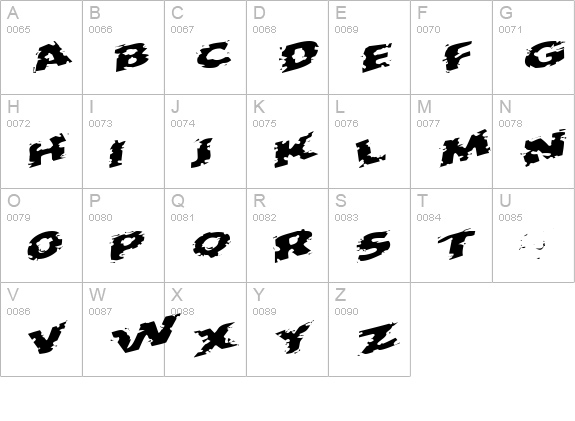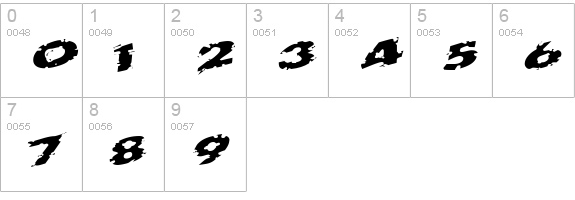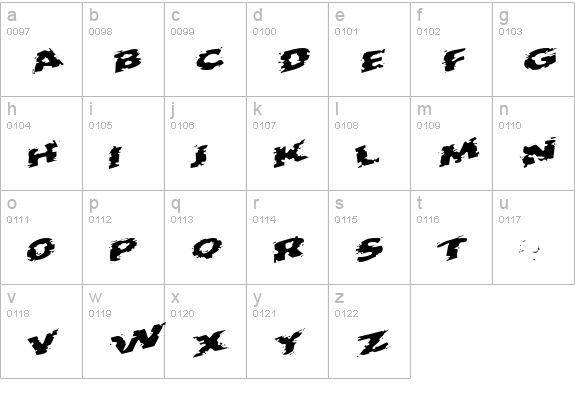
OutbackOutaConrtolSCapsSSK Font Details
OutbackOutaConrtolSCapsSSK font is a bold and dynamic typeface that exudes a sense of adventure and excitement. Its rugged and unconventional design makes it perfect for projects that require a touch of individuality and creativity. The unique combination of sharp angles and playful curves gives this font a distinctive and eye-catching appearance. What makes OutbackOutaConrtolSCapsSSK font even more appealing is that it is available for free download at FontsMarket.com. This means that you can easily access this striking font and use it in your personal or commercial projects without any cost. Whether you're working on a poster, logo, website design, or any other creative endeavor, OutbackOutaConrtolSCapsSSK font will add a touch of originality and flair to your work. Download it today and let your creativity run wild with this exciting and free typeface.